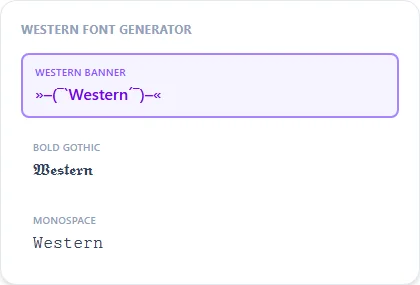
Western Font Generator
Western/cowboy lettering typically means a bold, slightly rustic serif look with decorative framing. No single Unicode block reproduces an actual Wild West typeface, but bold gothic styles paired with rope-style framing get close.
Western Banner wraps your text in a wanted-poster-style frame; Bold Gothic underneath gives it the heavier, old-timey letterforms.
Western Font Generator style examples: Western Banner, Bold Gothic, Monospace, rendered on the word "Western"
No dedicated Wild West Unicode block, so this combines two techniques
Classic Western typography, the slab serifs on saloon signs and the ornate lettering on wanted posters, was hand-drawn sign work, not a standardized typeface, so there's nothing for Unicode to define directly. Western Banner instead frames your text with rope-and-arrow style symbols, while Bold Gothic underneath supplies heavier, old-fashioned letterforms. Together they approximate the feel without claiming to reproduce one exact historical font.
Where a Western look fits
This style suits a cowboy or ranch-themed username, a country-music caption, or a novelty 'wanted poster' post. It's decorative framing built from plain text, so treat it as a quick preview rather than a print-ready design element.
What does Western Banner look like?
A rope-and-arrow style frame around your text, evoking a wanted-poster or saloon-sign look, built from plain-text Unicode symbols.
Is there an actual cowboy-font Unicode block?
No — this combines the closest available heavier letter styles with decorative framing rather than reproducing any one specific Western typeface.
Good for a country music or ranch-themed bio?
Yes, Western Banner paired with Bold Gothic is the closest single combination to that aesthetic on this site.
Does Monospace fit the Western theme too?
It's more of a neutral, mechanical option than a Western-specific one — Western Banner and Bold Gothic are the stronger thematic picks.